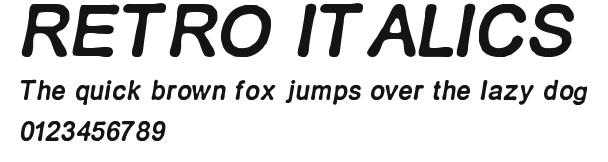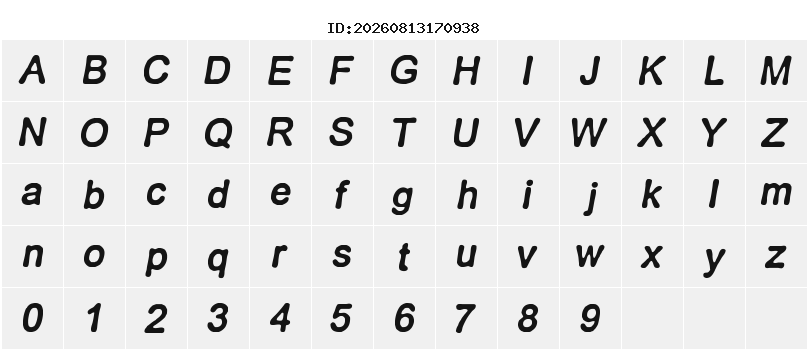
About RETRO ITALICS.ttf
RETRO ITALICS.ttf is a modern, elegant sans-serif font designed for ultimate readability and visual harmony. Perfect for branding, headlines, web design, and print materials.